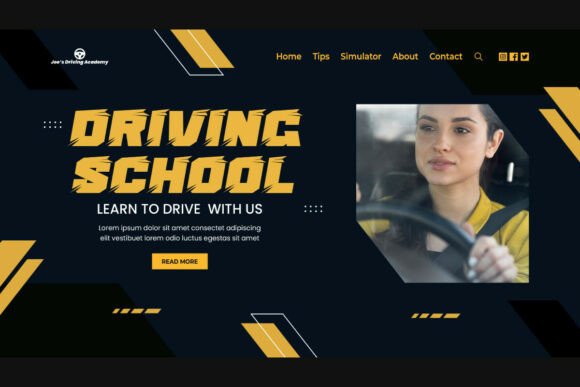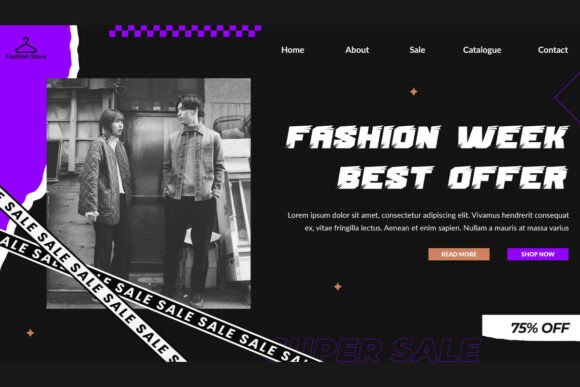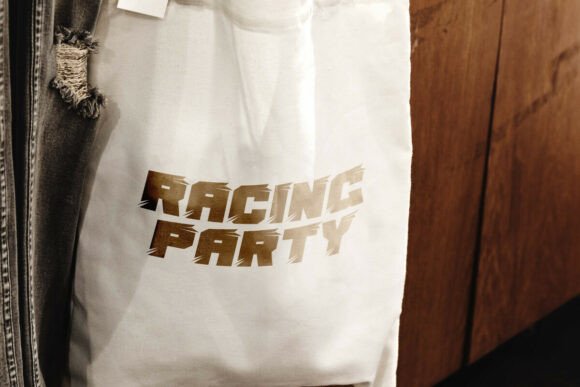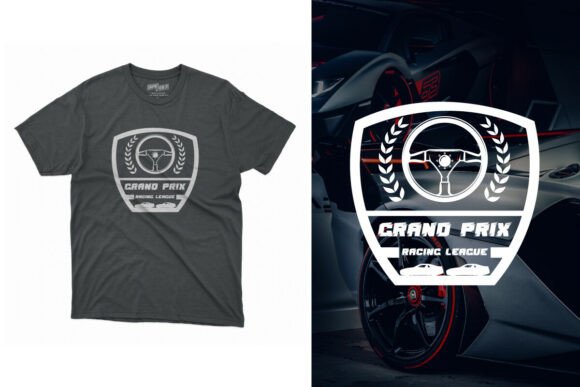
Introduction to Racing Party Font Font
Fonts play a crucial role in design, and the Racing Party Font font is a typeface that brings both character and versatility to any project. Whether you’re working on a branding project, a website, or a print design, the Racing Party Font font offers a unique style that can elevate your work.
Cross the finish line with the Racing Party font, a high-octane “racing font” designed to capture the thrill of the track and the dirt.
This Racing Party typeface features thick, heavy letterforms with aggressive “motion blur” or “speed scratch” terminals, giving every word an instant sense of rapid movement It is the perfect choice for motocross events, racing team logos, and high-energy event flyers where speed is the central theme.
The Racing Party Font font is more than just a typeface – it’s a design tool that helps you communicate your message with style and clarity. Its unique character set and versatile design make it suitable for a wide range of applications, from elegant invitations to bold headlines.
With its carefully crafted letterforms and balanced proportions, the Racing Party Font font ensures readability and visual appeal across all mediums.
What makes Racing Party Font font special?
The Racing Party Font font stands out with its unique design, exceptional readability, and versatility across various design applications.